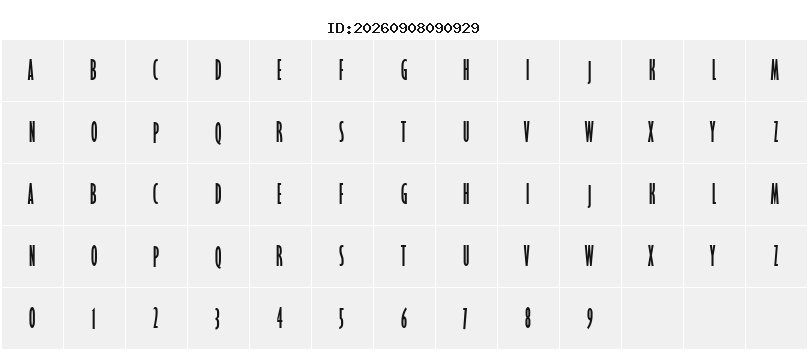
URWGalaxieNo2ComDBol Preview
• Font Name: URWGalaxieNo2ComDBol
• Font ID: URW:URWGalaxieNo2ComD-Bold:1998
• Full Font Name: URWGalaxieNo2ComDBol
• PostScript Name: URWGalaxieNo2ComD-Bold
About URWGalaxieNo2ComDBol.ttf
URWGalaxieNo2ComDBol.ttf is a modern, elegant sans-serif font designed for ultimate readability and visual harmony. Perfect for branding, headlines, web design, and print materials.